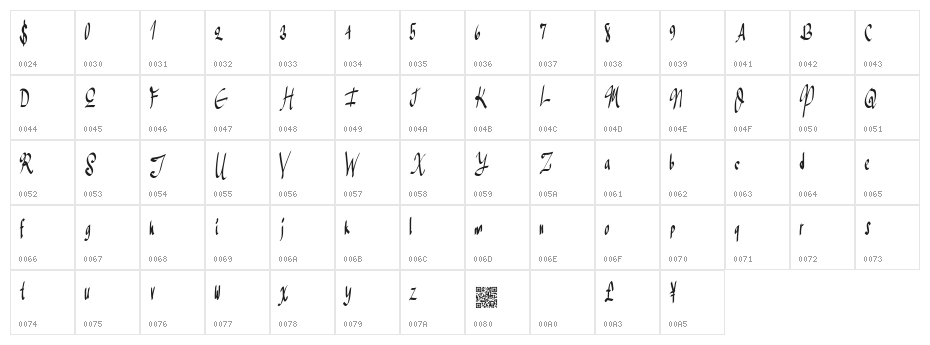
GreaterSales Font
GreaterSales Description
This font features an elegant and flowing script style, characterized by its sweeping curves and intricate details. The uppercase letters are particularly ornate, with exaggerated flourishes that give a sense of movement and sophistication. The lowercase letters maintain a consistent style, offering a harmonious blend with the uppercase. Numbers and special characters are designed to match the overall aesthetic, ensuring a cohesive look across all text. The font's artistic flair makes it suitable for creative and decorative applications.